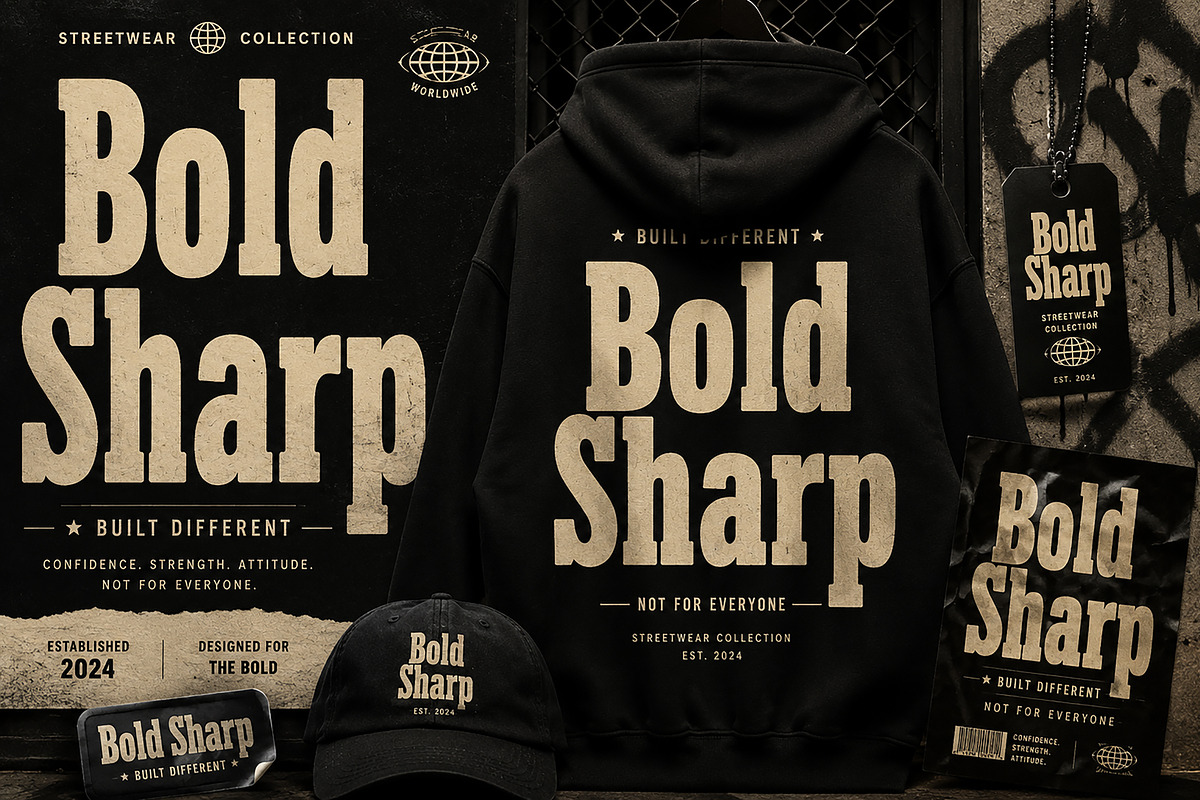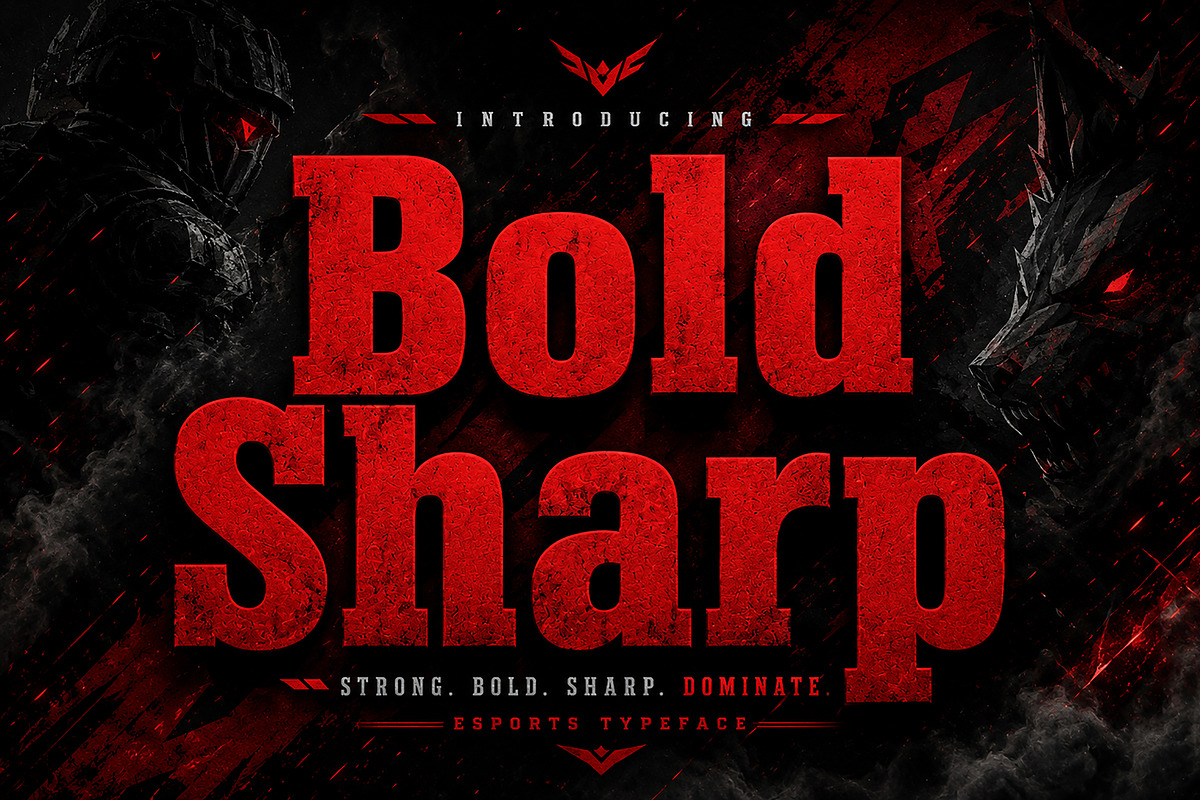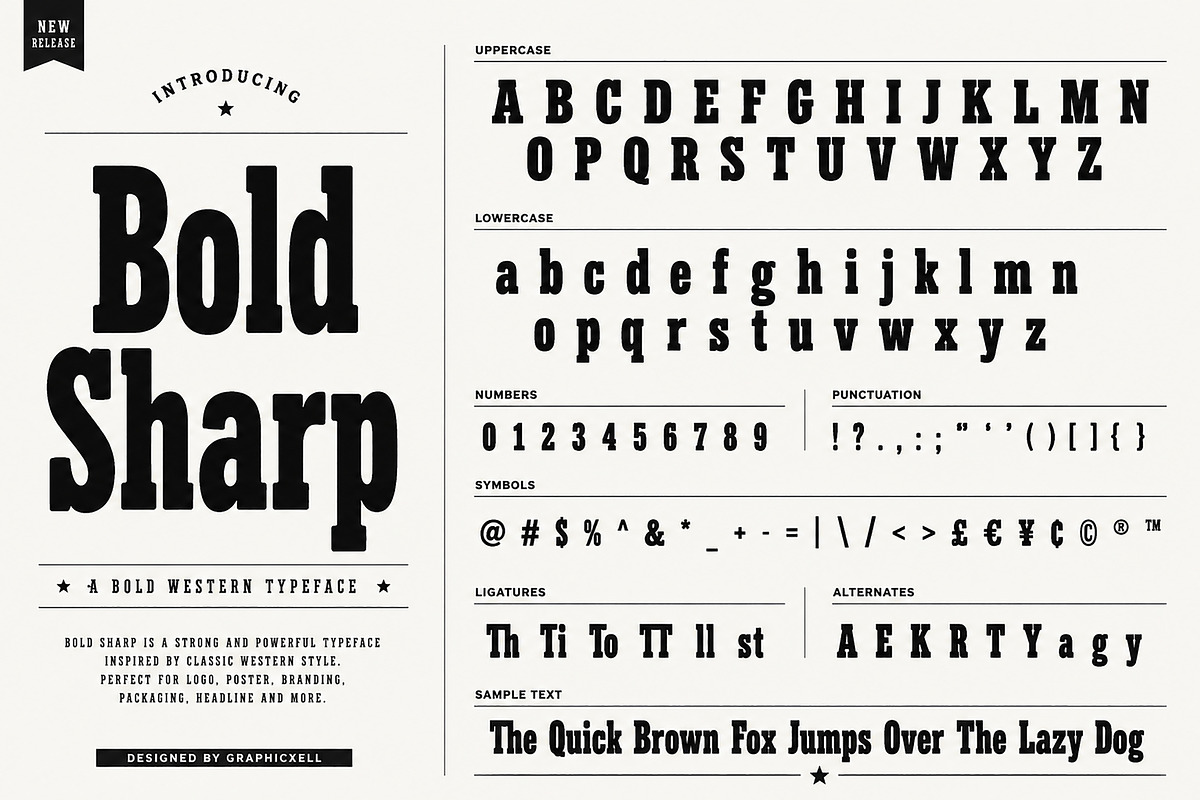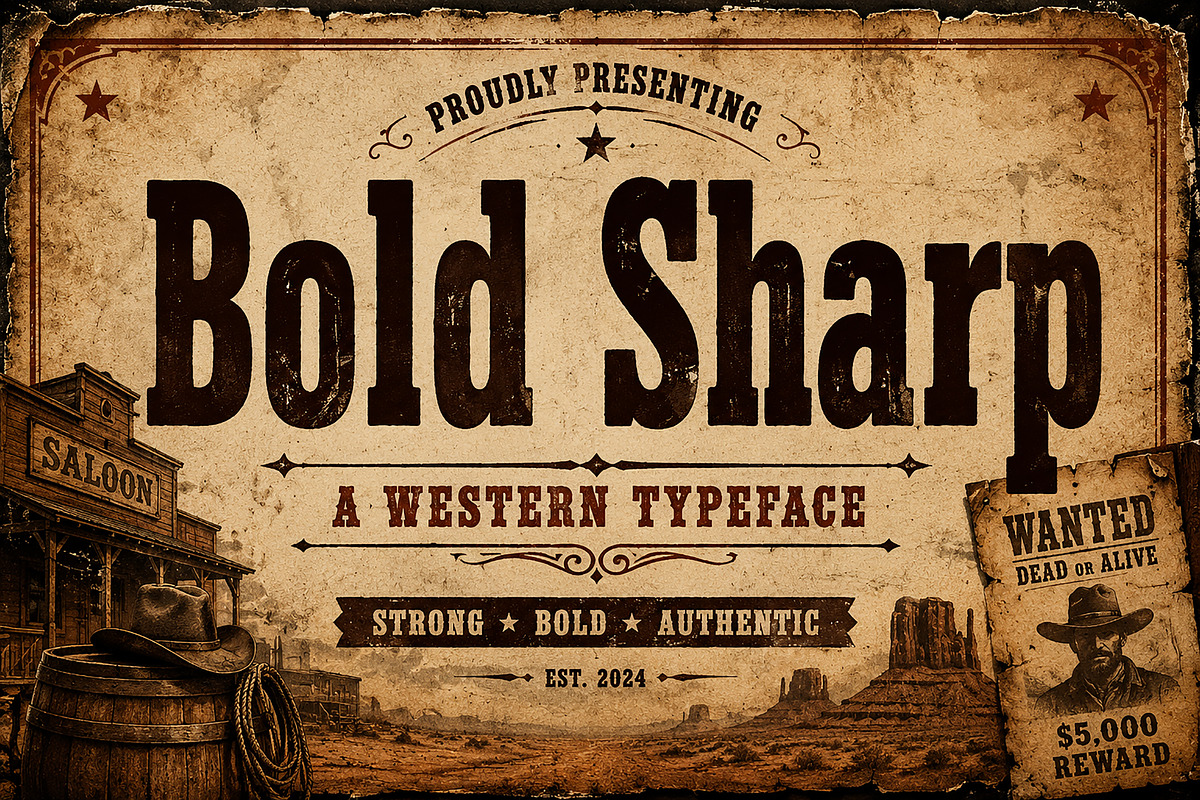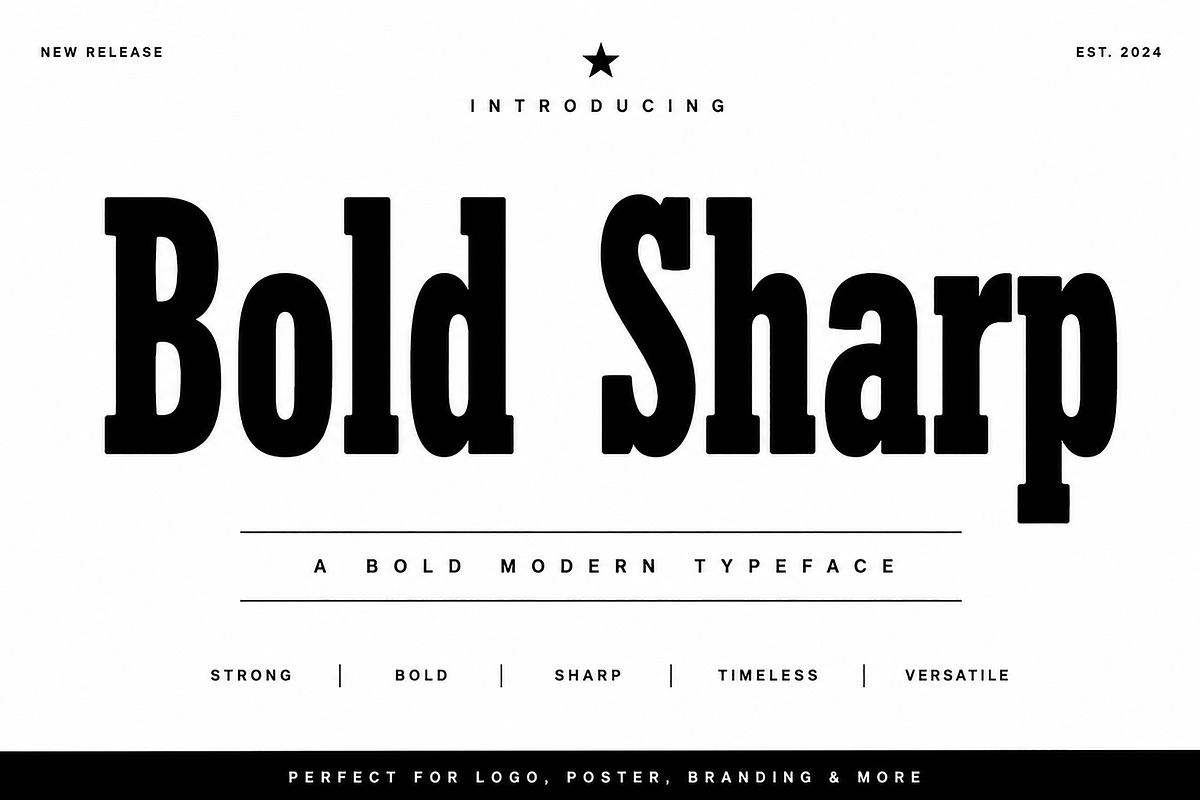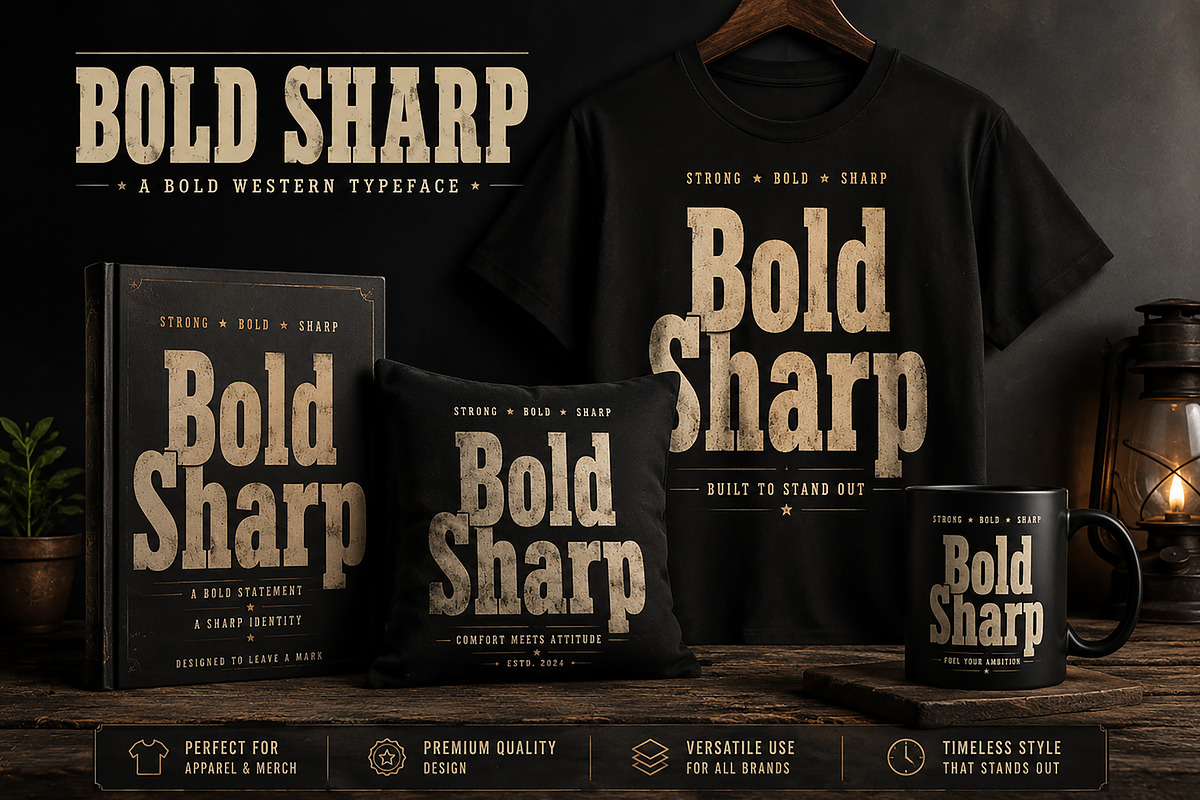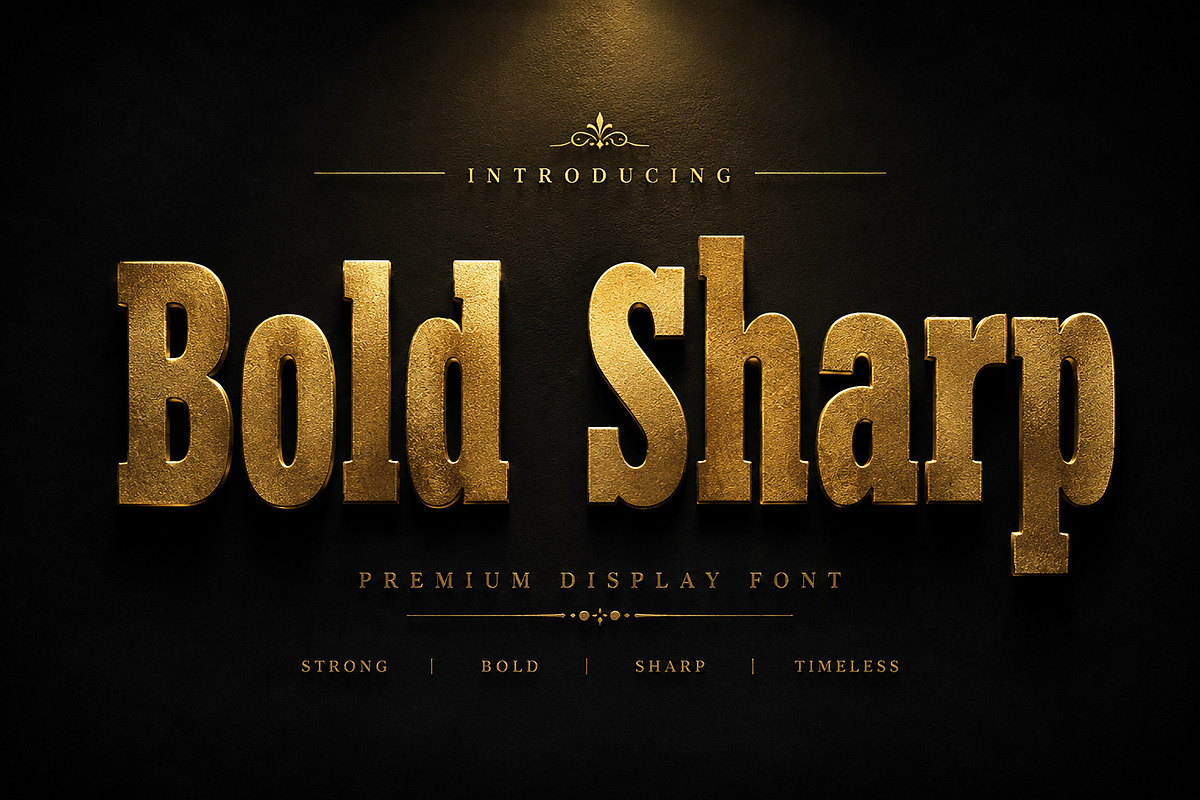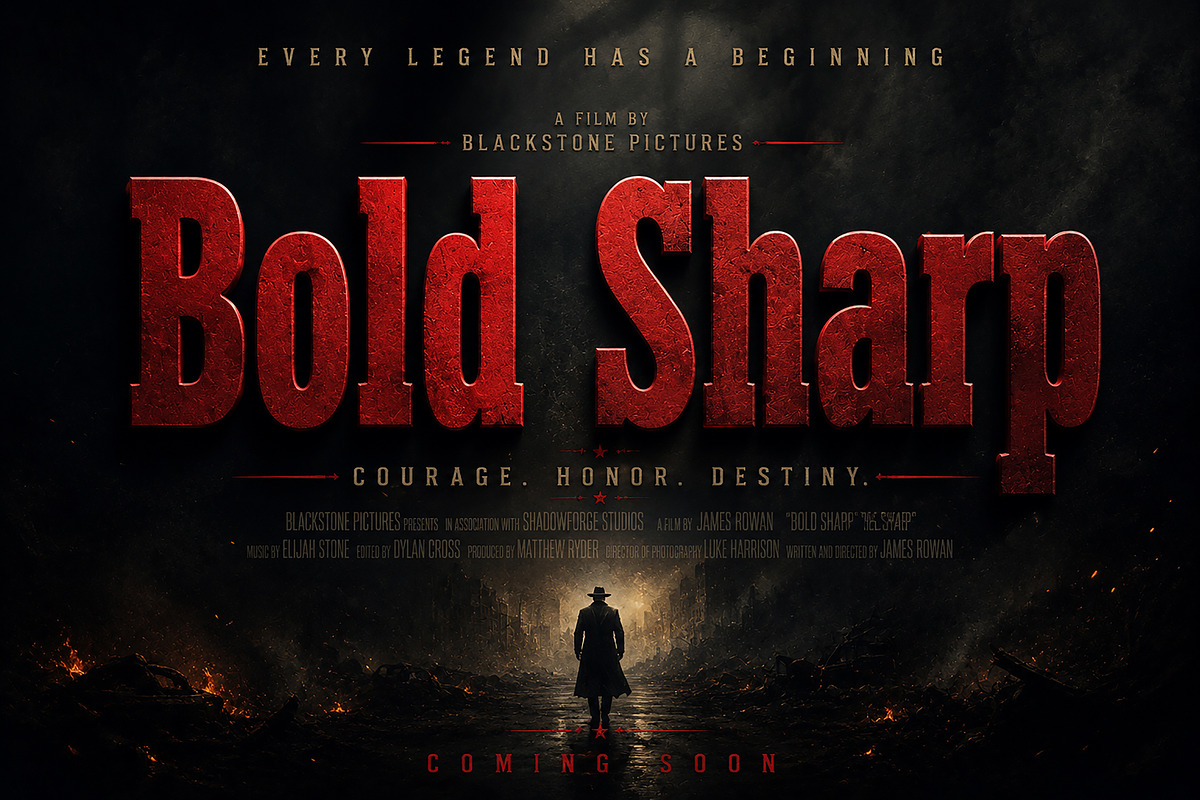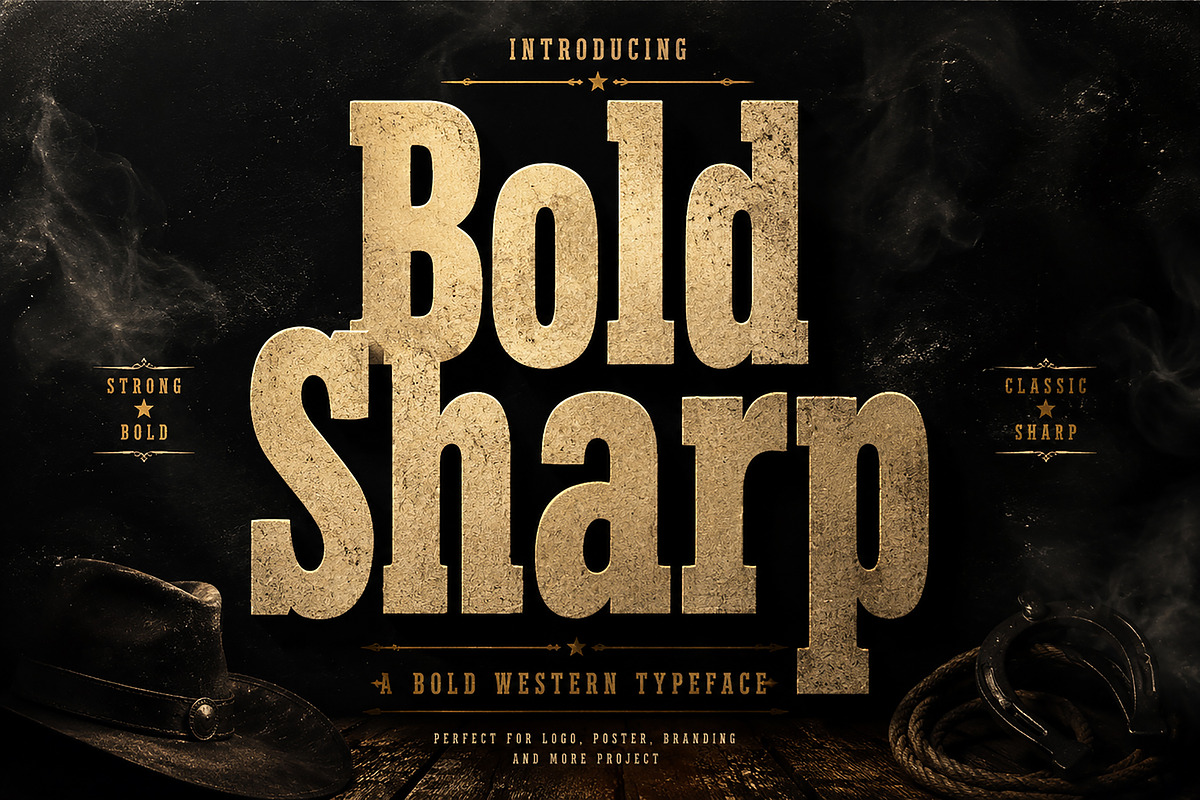
Bold Sharp
Bold Sharp – Display Font / Bold Serif Font / Slab Serif Font
Bold Sharp is a strong and eye-catching display font with bold serif letterforms and sharp vintage character. Inspired by classic poster typography, retro headlines, and powerful editorial lettering, this font is designed to create high-impact visual designs.
Its thick structure, strong contrast, and sharp edges make it perfect for logos, posters, branding, packaging, book covers, apparel, merchandise, magazine titles, and attention-grabbing headlines. Creative Market-এর Display Fonts সাধারণত bold, memorable, energetic headline use-এর জন্য জনপ্রিয়, আর এই font সেই ধরনের design project-এর জন্য উপযোগী।
Bold Sharp works especially well for designs that need a confident, masculine, retro, and professional look. Use it to bring strength, authority, and vintage charm to your typography.
Bold Serif Style
Sharp Letterforms
Display Font Design
Strong Vintage Look
Uppercase Characters